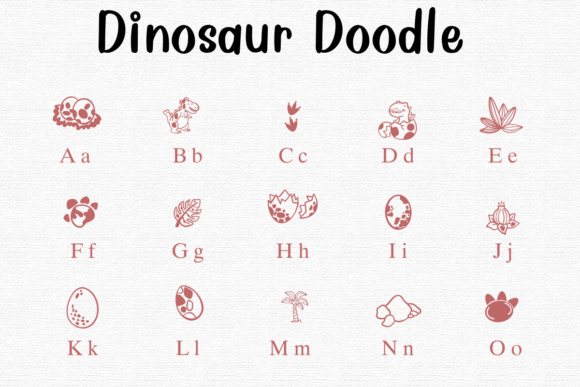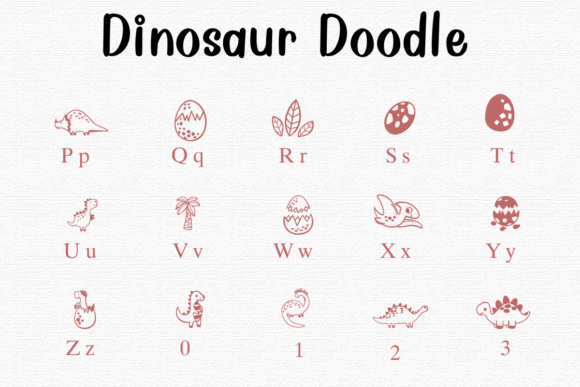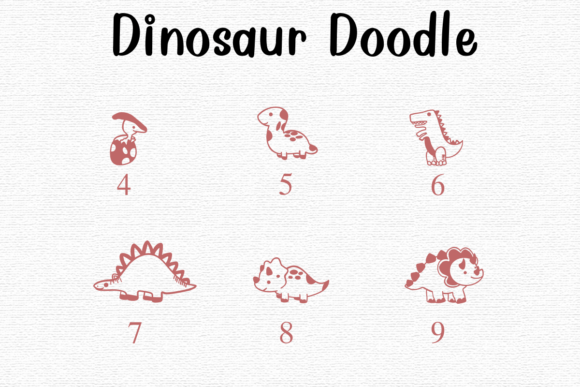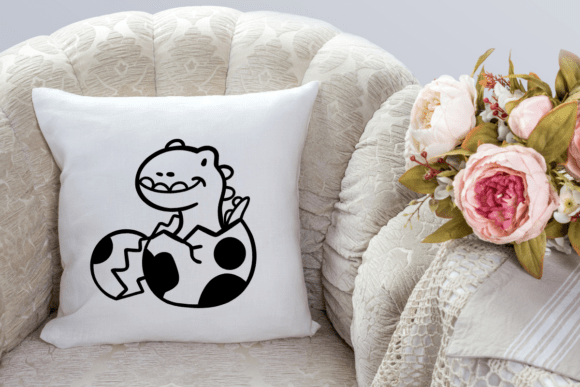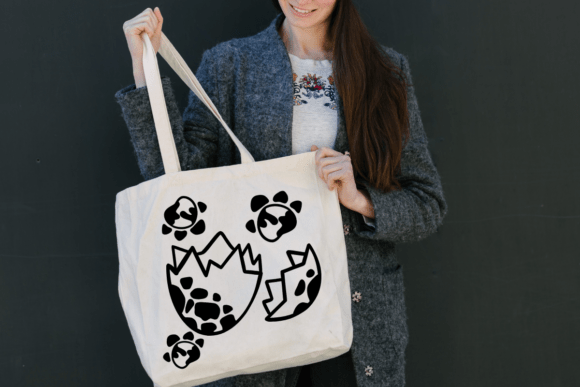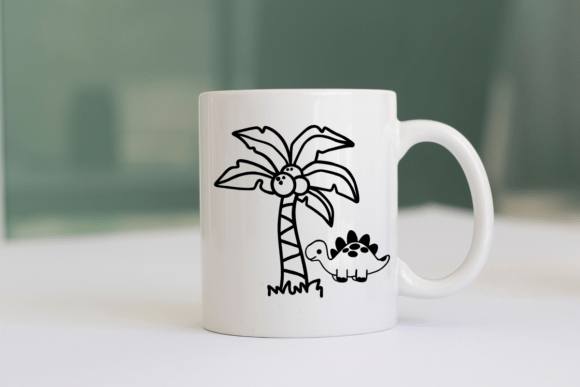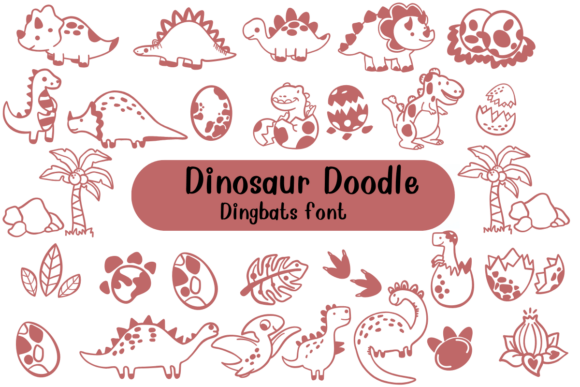
The Roar of Creativity: Unleashing the Power of Dinosaur Doodle Font
Do you remember the excitement of doodling as a child? The joy of bringing your imagination to life with simple yet expressive lines? For many of us, doodling was more than just a hobby – it was a way to express ourselves and tap into our creativity. As designers, we know that a great font can be the spark that ignites a project, making it go from ordinary to extraordinary.
Enter Dinosaur Doodle Font, a delightful dingbats font that brings a touch of whimsy and fun to any project. With its adorable dinosaur and prehistoric creature illustrations, this font is perfect for adding a playful twist to wedding invitations, DIY crafts, and other creative endeavors. Whether you’re a seasoned designer or just starting out, Dinosaur Doodle Font is a valuable addition to your toolkit, offering endless possibilities for creativity and self-expression.
Dinosaur Doodle Font Key Features
• Unique Characteristics: The Dinosaur Doodle Font features a playful, hand-drawn design with a mix of uppercase and lowercase letters, numbers, and special characters, including dinosaurs and other fun elements.
Dinosaur Doodle Font Review
I’ve had the chance to play around with the “Dinosaur Doodle Font” and here’s my honest take on it.
• Unique and quirky design: The font has a distinct, hand-drawn feel that’s perfect for adding some personality to your designs.
• Fun and playful vibe: It’s a great choice for projects that need a lighthearted and whimsical touch.
• High-quality vector graphics: The font is well-constructed and looks great at various sizes and resolutions.
• Limited character set: The font is missing some essential characters, including punctuation and special symbols.
• Not ideal for formal or professional use: The font’s playful nature makes it less suitable for formal or professional projects.
• May require manual adjustments: Depending on the context, you may need to adjust the font’s spacing or line height to get the best results.
The “Dinosaur Doodle Font” is a fun and quirky addition to any designer’s toolkit. While it may not be the best choice for every project, it’s perfect for adding a playful touch to your designs. With a little creativity and manual adjustments, it can be a great way to add some personality to your work.
The Dinosaur Doodle Font is perfect for:
• Children’s party invitations and decorations.
• Education and learning materials.
• Marketing and advertising campaigns targeting families and children.